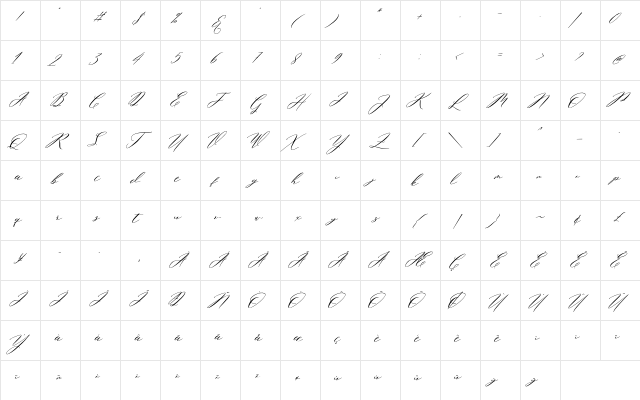
Miolleta Script Regular
| Foundry | PointlabStd_Ferdiansyah 2019 |
| Designer | PointlabStd_Ferdiansyah 2019 |
Design Context for Miolleta Script Typeface
Miolleta Script brings a calligraphic fluidity to the page — its connecting strokes and expressive curves give it an unmistakably human quality.
Font Pairing: Combine Miolleta Script with a simple geometric sans for maximum contrast — the tension between flowing curves and clean structure is a classic typographic pairing.